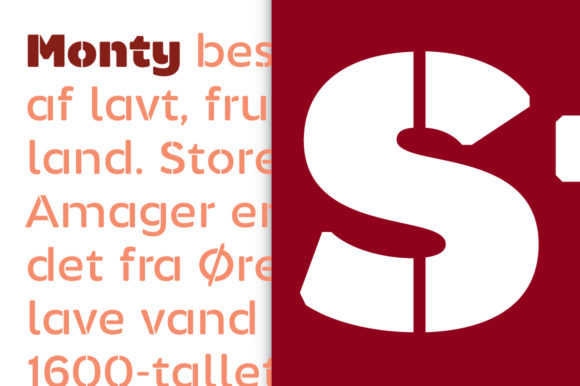
Dive into the world of typography with Monty Stencil, a groundbreaking sans serif font that redefines the boundaries of visual communication. Created by the ingenious mind of Jan-Christian Bruun, this masterpiece offers a symphony of graceful curves and sharp edges, effortlessly blending harmony and contrast.
Unleash your creativity with Monty Stencil's versatile nature. Its ability to effortlessly adapt to diverse design styles makes it a true chameleon in the world of fonts. Whether you're crafting elegant invitations, captivating headlines, or dynamic logos, Monty Stencil seamlessly conforms to your vision, adding a touch of sophistication and intrigue.
Indulge in the sensory delight of Monty Stencil's meticulously crafted characters. The soft, rounded curves evoke a sense of warmth and approachability, while the precise, chiseled edges exude a sense of strength and stability. This harmonious balance between softness and structure creates a visual spectacle that captivates your audience and leaves a lasting impression.
Embrace the power of Monty Stencil to elevate your designs to new heights. Its exceptional legibility ensures that your message is conveyed with clarity and impact, even in the most challenging environments. Whether you're designing for print or digital platforms, Monty Stencil's unwavering readability guarantees that your words resonate with your audience.
As a meticulously crafted sans serif masterpiece, Monty Stencil stands as a testament to the transformative power of typography. Its versatility, clarity, and captivating aesthetics make it the perfect choice for designers, marketers, and creatives seeking to leave an indelible mark on their audience. Experience the magic of Monty Stencil today and let your designs flourish with newfound beauty and impact.